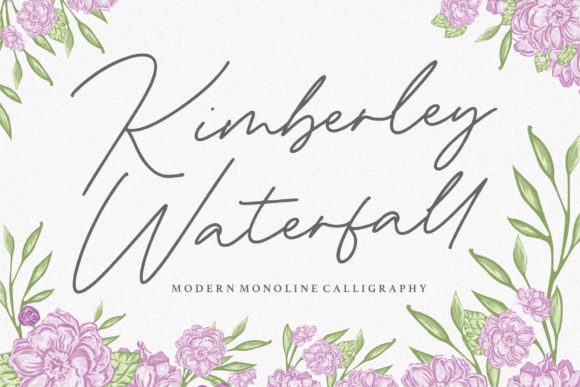
Welcome to the world of Kimberley Waterfall, a font crafted with love and passion, specifically designed to bring your creative visions to life. As a script font family, Kimberley Waterfall is the epitome of elegance, boasting a timeless charm that exudes a sense of sophistication and grace. Allow this font to be your muse as you design clean logos that speak volumes, leaving a lasting impression on your audience.
This font is the brainchild of Balpirick, a renowned font designer known for creating masterpieces that ignite the imagination. Kimberley Waterfall is no exception, showcasing a meticulously crafted collection of characters that dance harmoniously on the page, promising to transform your designs into works of art.
Indulge in the versatility of Kimberley Waterfall, a font that effortlessly adapts to various creative endeavors. Whether you're a seasoned designer or just starting your artistic journey, Kimberley Waterfall will seamlessly blend into your workflow, empowering you to create captivating wedding invitations that evoke a sense of romance and joy. Unleash your creativity and produce eye-catching social media posts that resonate with your audience, leaving them mesmerized by your design prowess.
With Kimberley Waterfall, you hold the key to unlocking a world of visual expression, where your designs will captivate and inspire. Experience the beauty of clean logos, elegant invitations, and striking social media posts that leave an indelible mark on the hearts and minds of your audience.